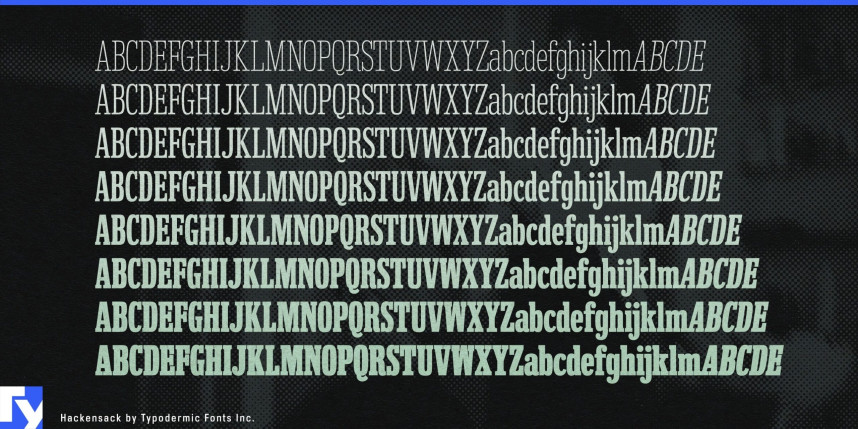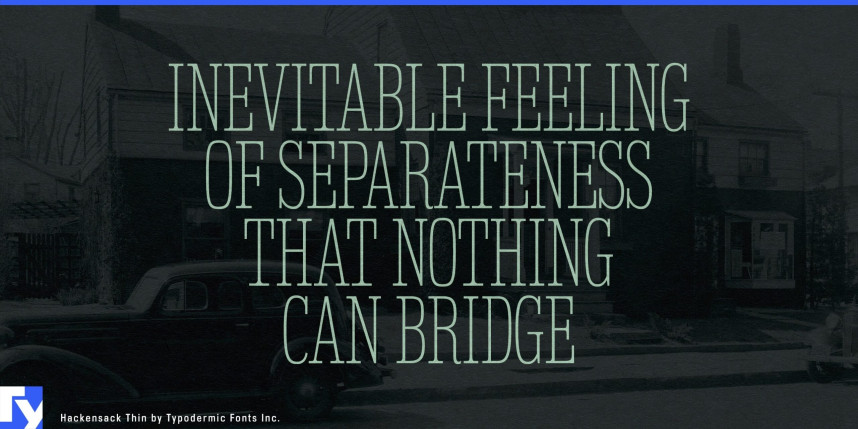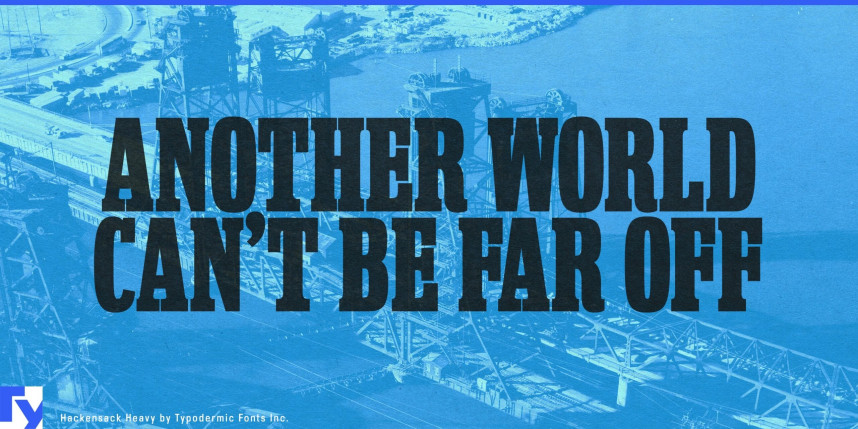
Hackensack Font gives long institutional names and public-project language a distinctive condensed voice. Its narrow slab-serif character suits hospital networks, transit extensions, bridge renewals, research centers, local journalism, documentaries, construction graphics, community presentations, infrastructure reports, and other place-based work with demanding copy lengths.